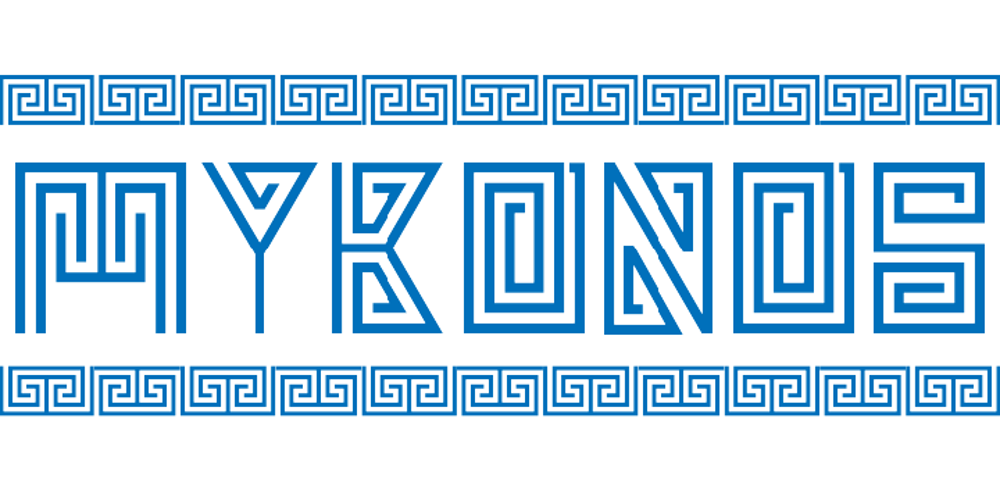
Mykonos
Mykonos font
Mykonos Font Family was designed by Denise Koehler and published by Deniart Systems. Mykonos contains 1 styles and family package options. A geometrical, modern, angular design inspired by the Greek Key. It’s complex yet simple, creating smooth, continuously flowing print. This font is well suited for headlines, posters, greeting cards, and much more.